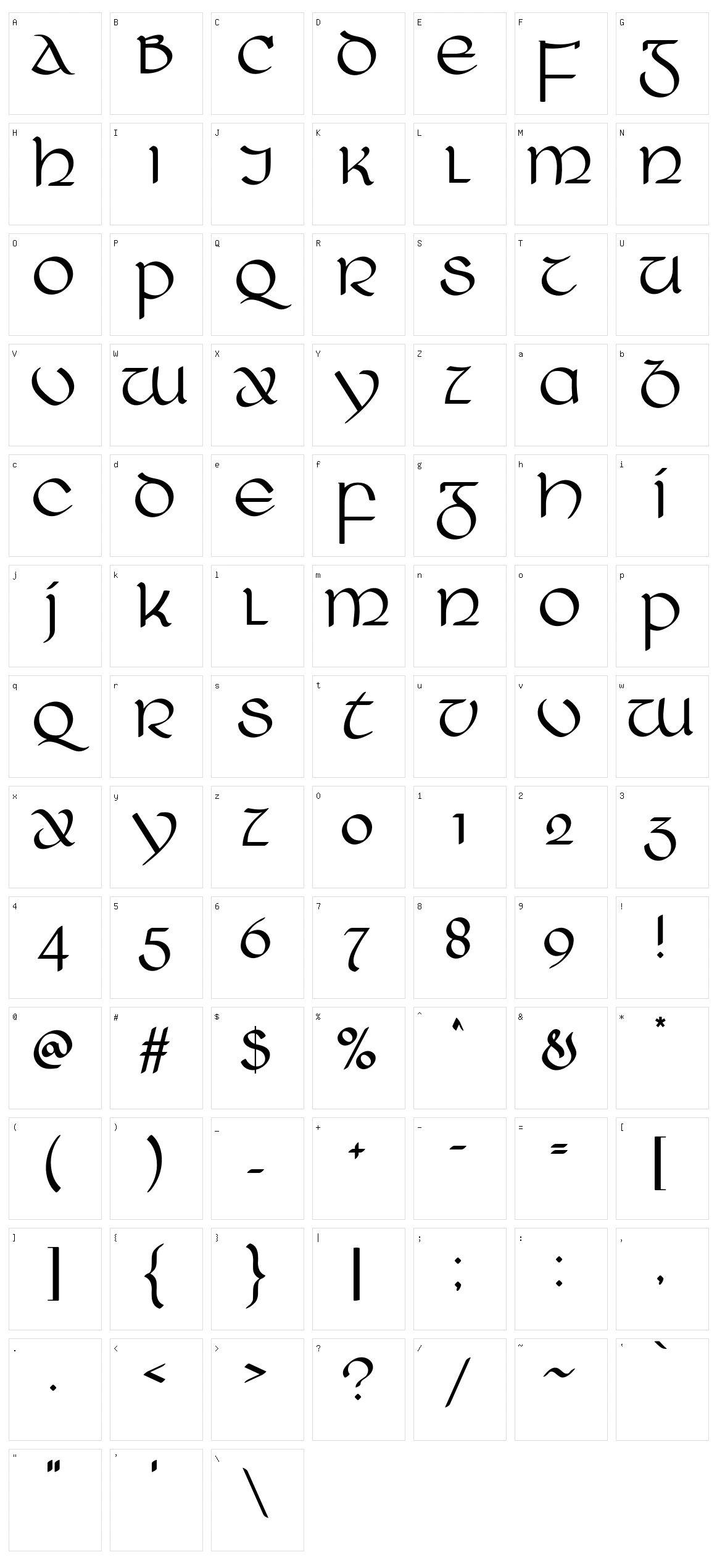
Ring of Kerry
Designed by: Sharkshock
Category: Celtic & Gothic
How's about yee my lads and lassies? The Ring of Kerry is sure to put a smile on your face and a song in your heart! This decorative display font should fill your needs for beautifuly crafted Irish style lettering. Medieval gaelic meets unical script in a fusion of mostly circle based characters
designed to repeat themselves and take up horizontal space. While it's majuscule in nature there are several "alternates" found in the lowercase letters to give a bit of variety. Basic latin, punctuation, European accents, kerning, and a few Celtic knots are available. These can be accessed by using
your program's glyphs panel. If your program doesn't support OTF features try some of the trademark symbols such as ® and ™. Use it for greeting cards, posters, or a pub logo.